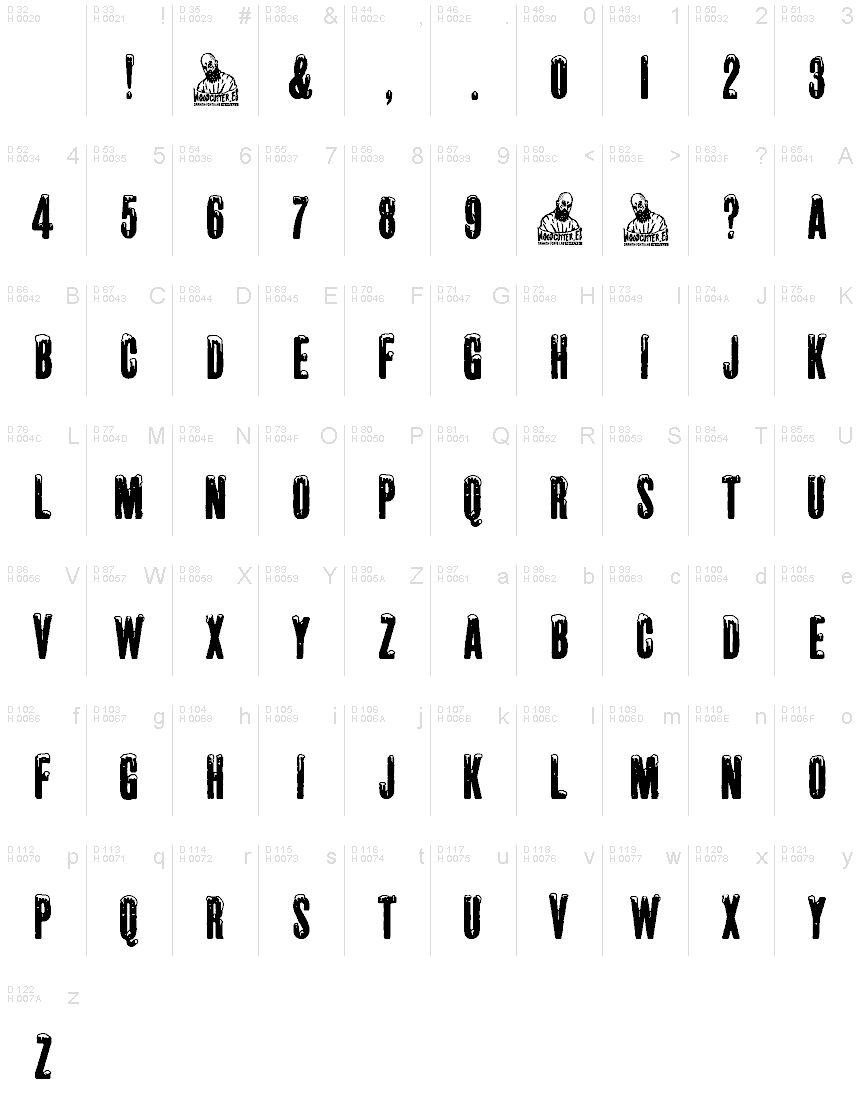
White Winter Snowboarding
White Winter Snowboarding is a free condensed decorative display font inspired by the winter season, and made available to users for free by Woodcutter. This unique multilingual font can be used to design projects that are related to skiing, snowboarding, the winter season, etc. It can also be used for branding projects for snowboarding products and winter accessories.
The font can also be used for posters, logotypes, advertisements, flyers, brochures, notebooks, magazines, etc. This eye-catching font is best suited for headlines and short texts.